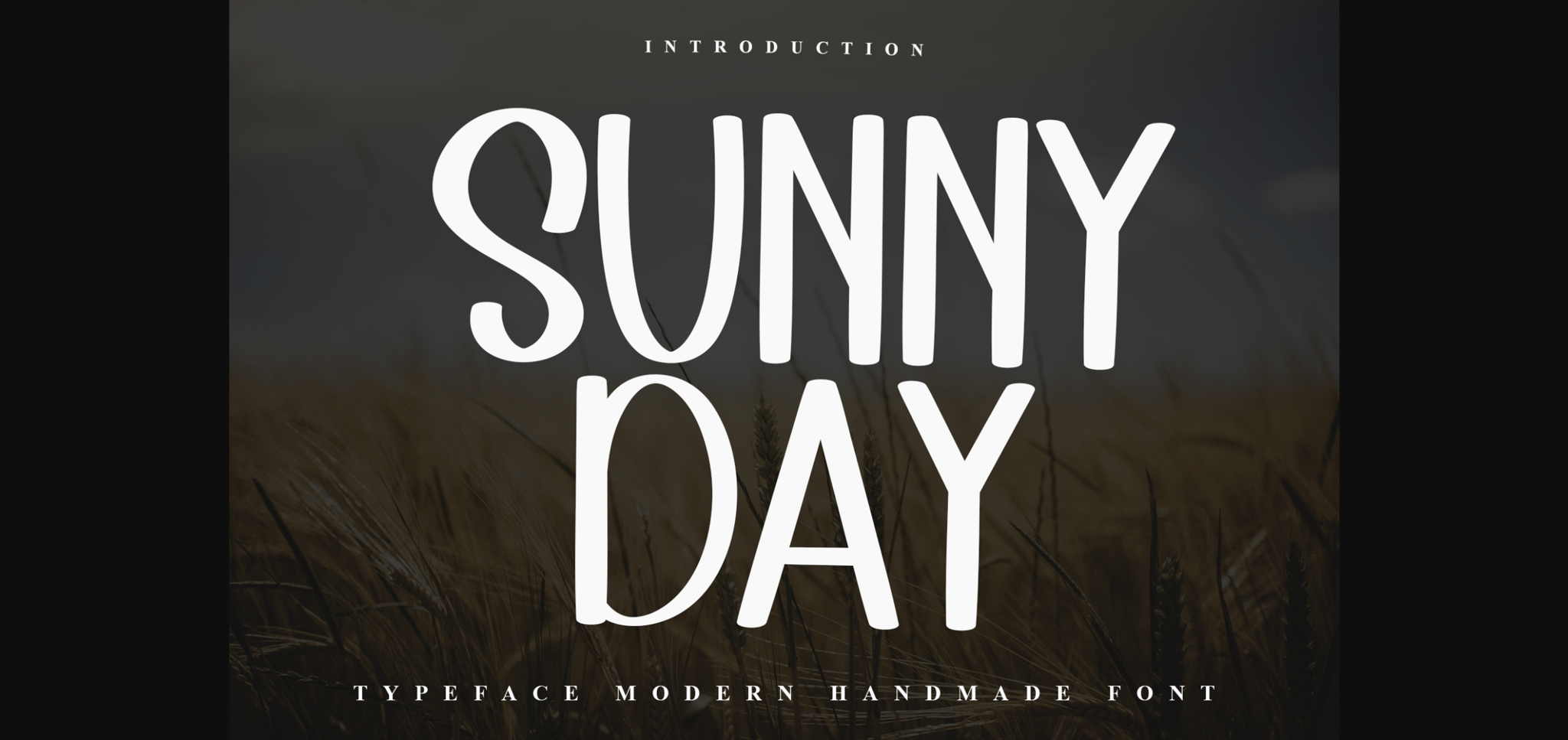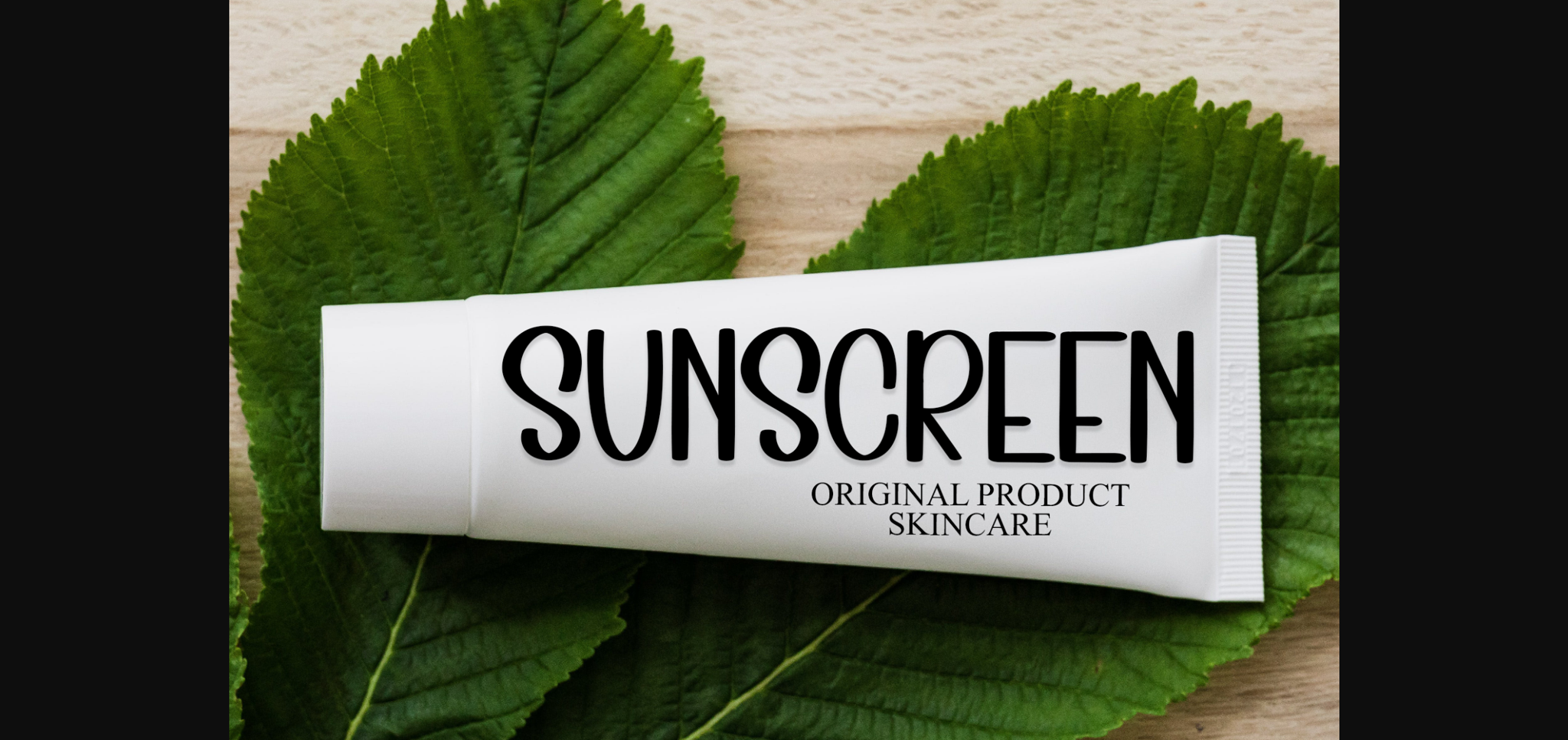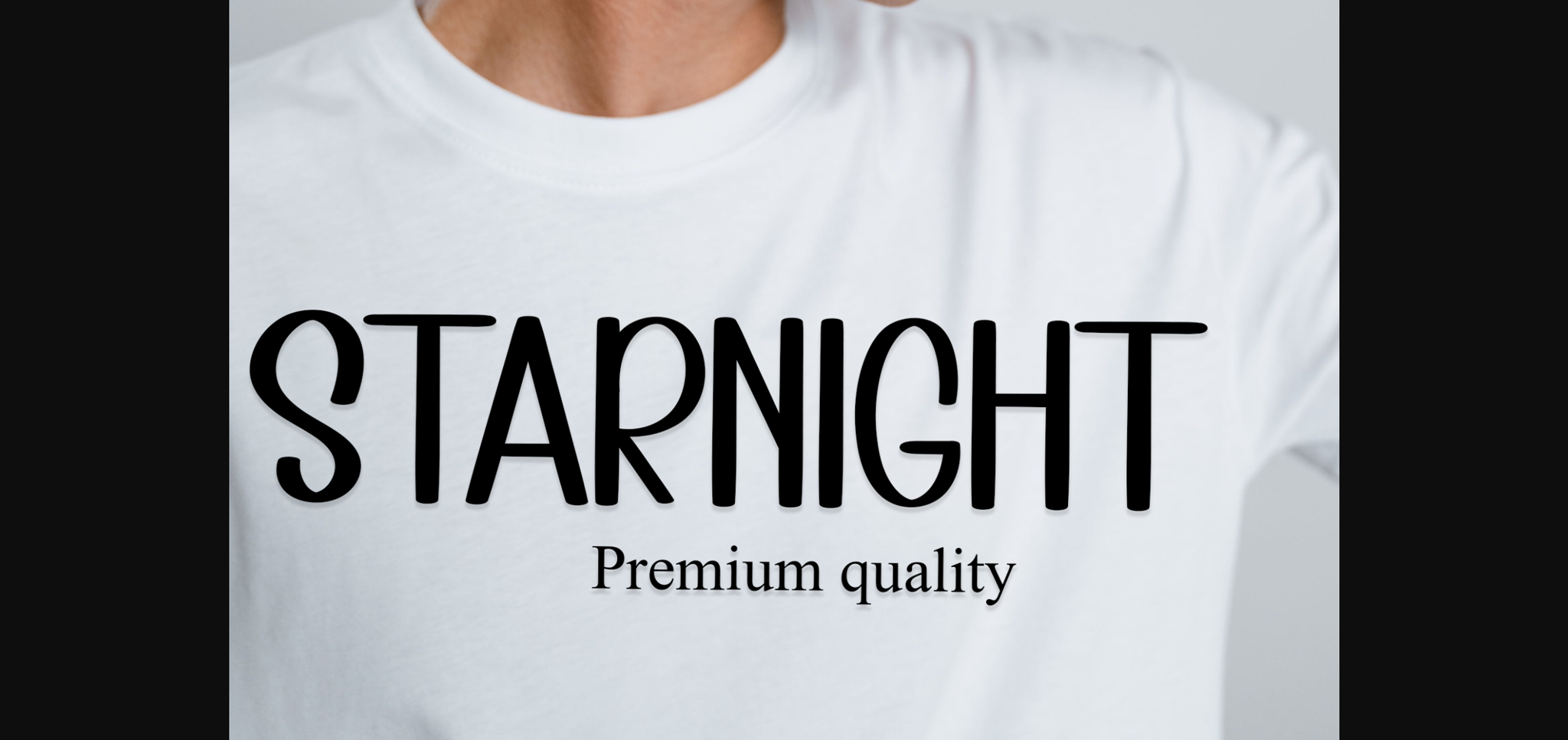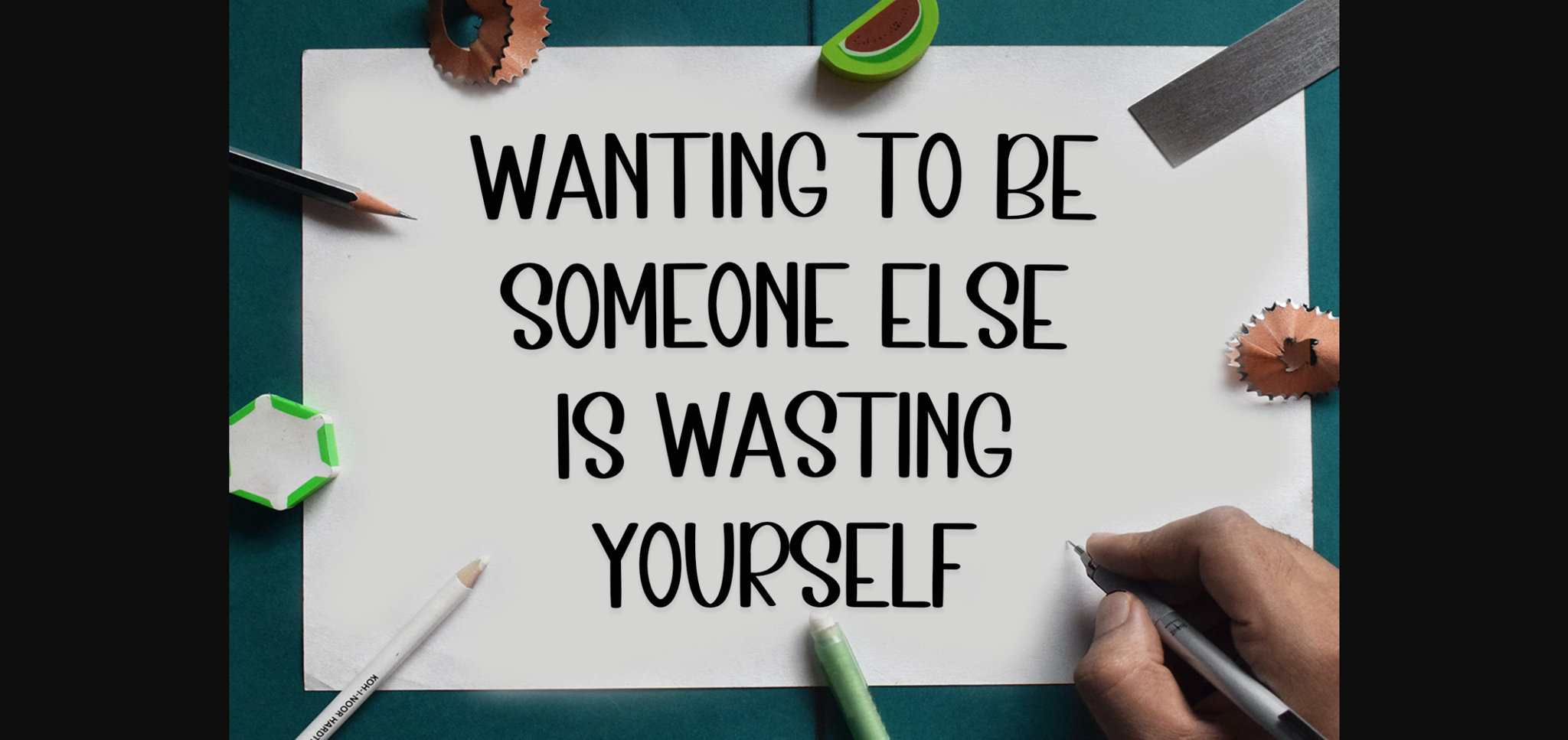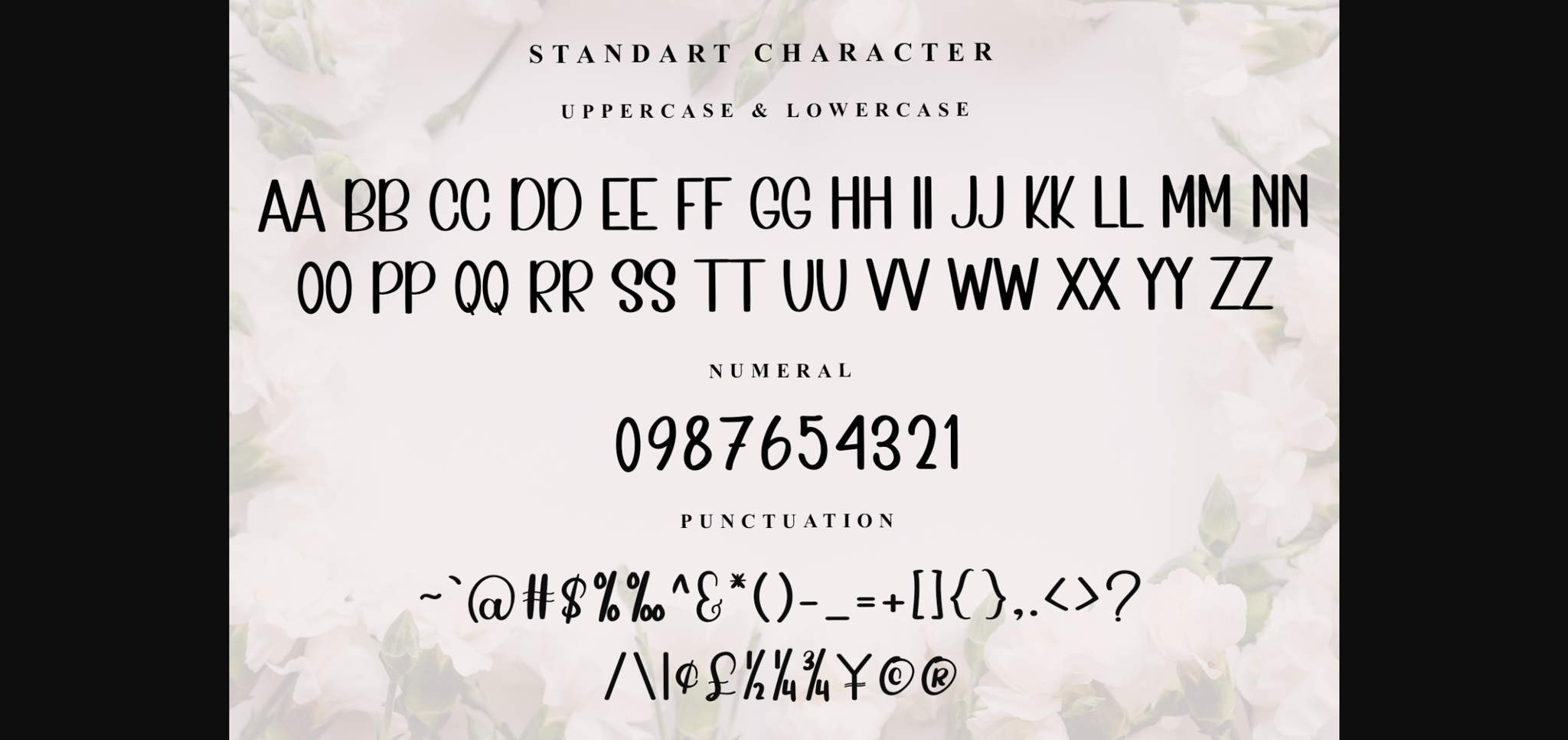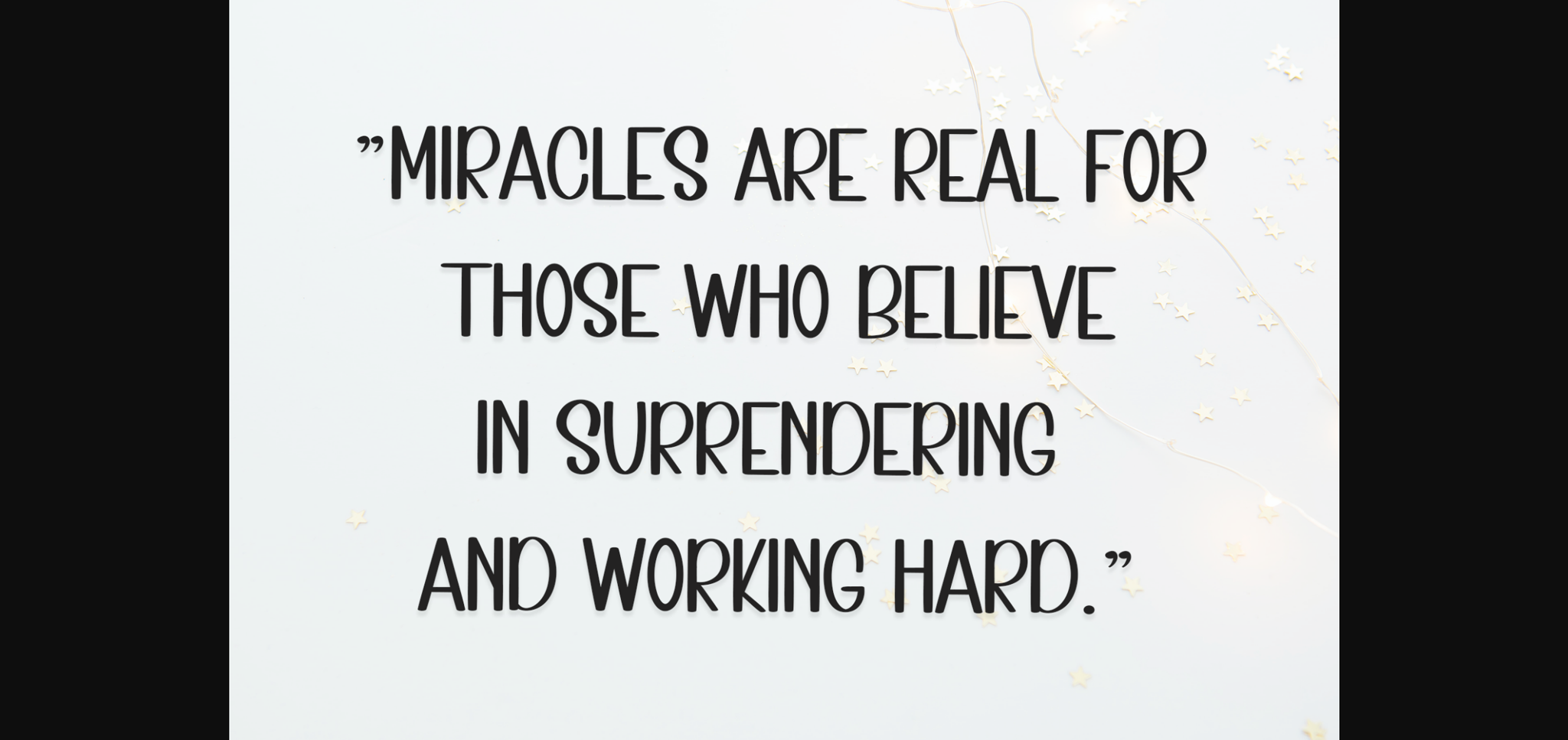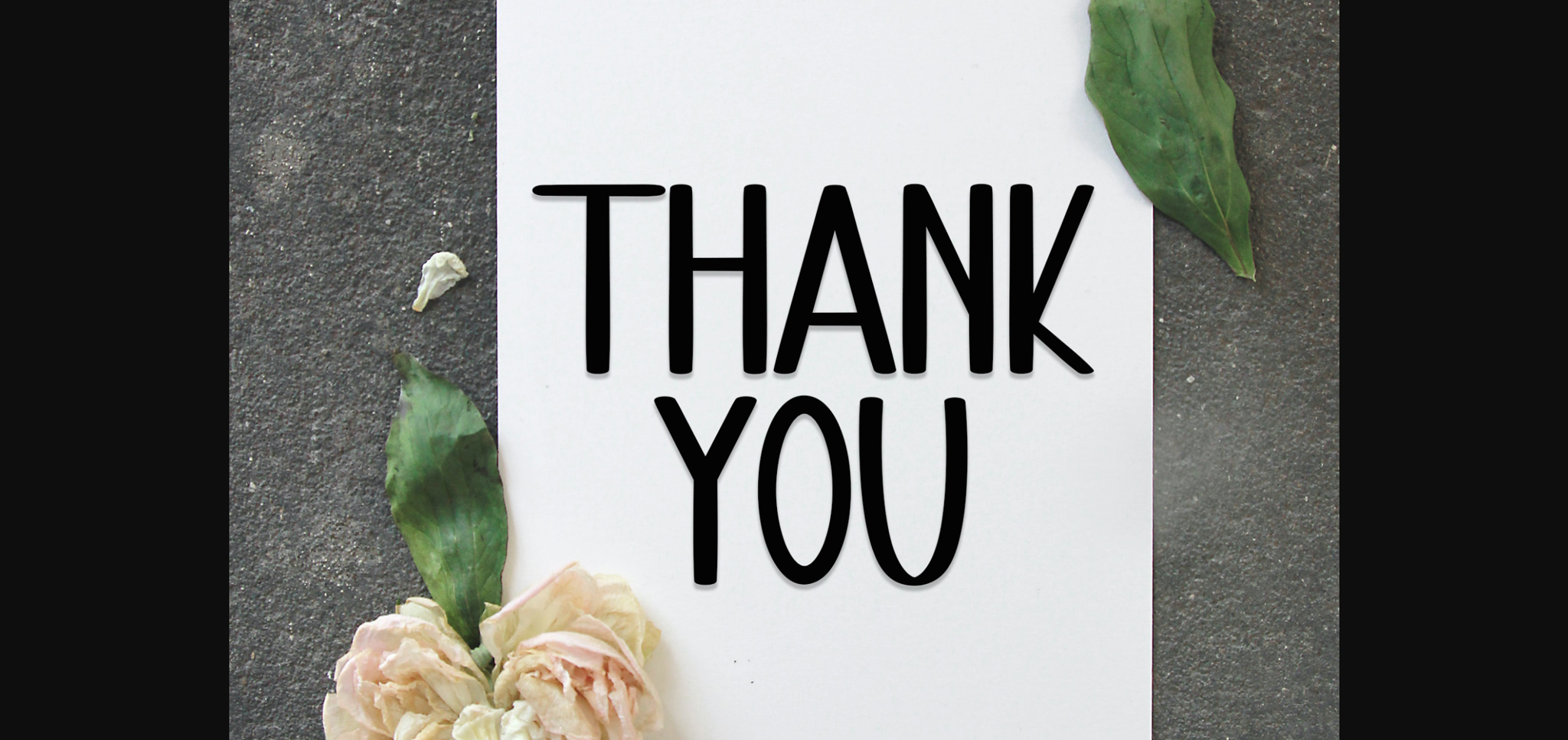
HomeSans Serif FontsSunny Day Font Sans Serif Fonts Sunny Day Font FacebookXPinterestWhatsApp 1 of 9 ... Sunny Day Font Poster 2... Sunny Day Font Poster 3... Sunny Day Font Poster 4... Sunny Day Font Poster 5... Sunny Day Font Poster 6... Sunny Day Font Poster 7... Sunny Day Font Poster 8... Sunny Day Font Poster 9... About Sunny Day Font Sunny Day is a neat and casual sans-serif font. Whatever the topic, this font is perfect for your creative craft needs! DOWNLOAD NOW People also explored Southern Font Fleabitten Font Shaipora Font Apple Juice Font Christmas Deco Font Minimal Font Mon Amour Font Golden Decades Selira Font 284 0 TagsSunny Day Font Previous articleTuesday FontNext articleEaster Bunny Font LEAVE A REPLY Cancel reply Comment: Please enter your comment! Name:* Please enter your name here Email:* You have entered an incorrect email address! Please enter your email address here Website: Save my name, email, and website in this browser for the next time I comment. Personal Use Free Beat My Guest Personal Use Free Read more about this font Mika Personal Use Free Read more about this font Archipellago Personal Use Free Read more about this font Kitchen Blue Personal Use Free Read more about this font BLOG Top 7 Google Fonts Alternatives for Faster and Privacy-Friendly Web Design (2025) Top 7 Google Fonts Alternatives for Faster and Privacy-Friendly Web Design (2025) When it comes to web typography, Google Fonts has long been the go-to... Where to Buy American Fonts Online in 2024 The 10 Best Handwriting Fonts to Add Personality to Your Designs How to Cut Any Font on Cricut: Convert a Font to SVG (Free)